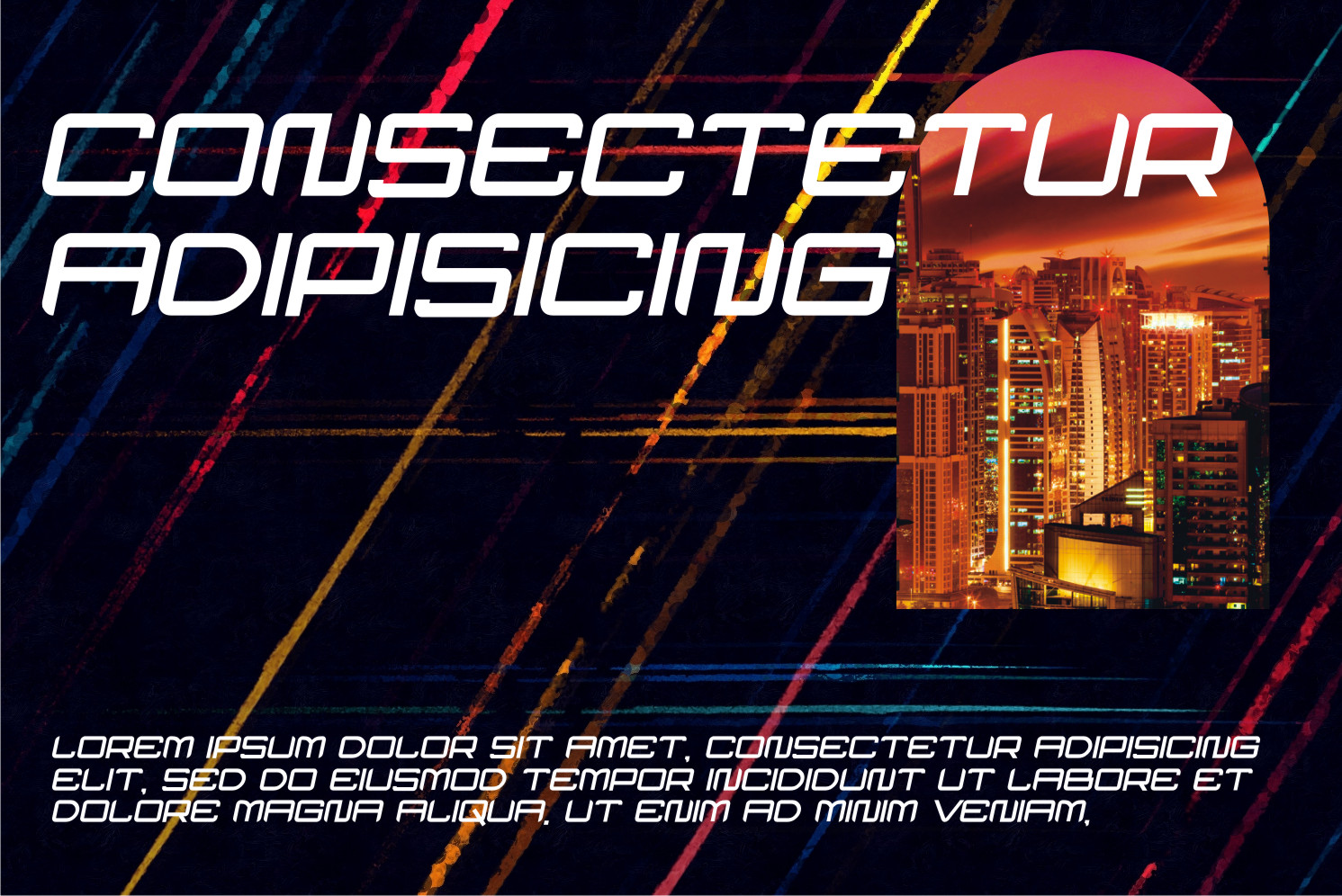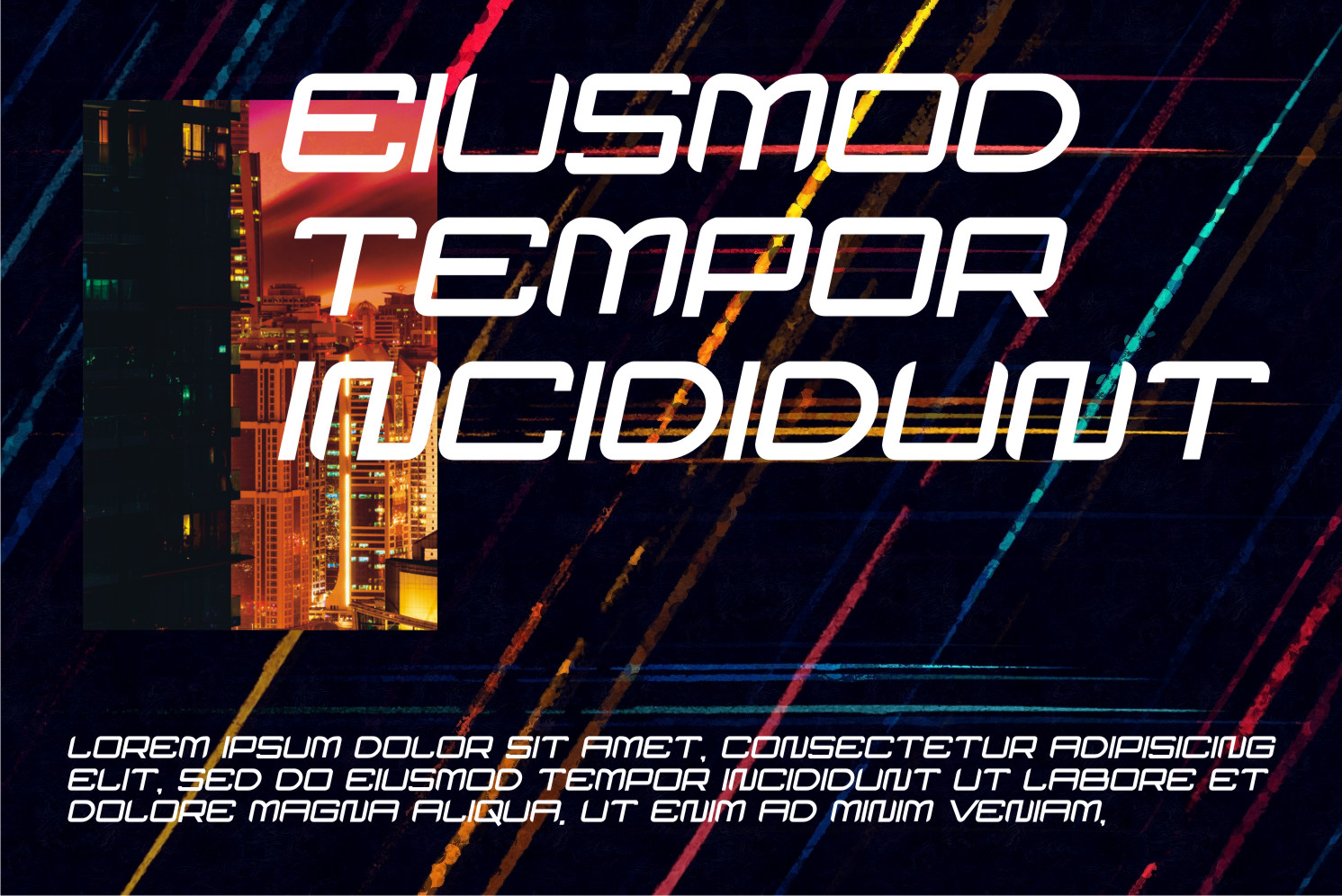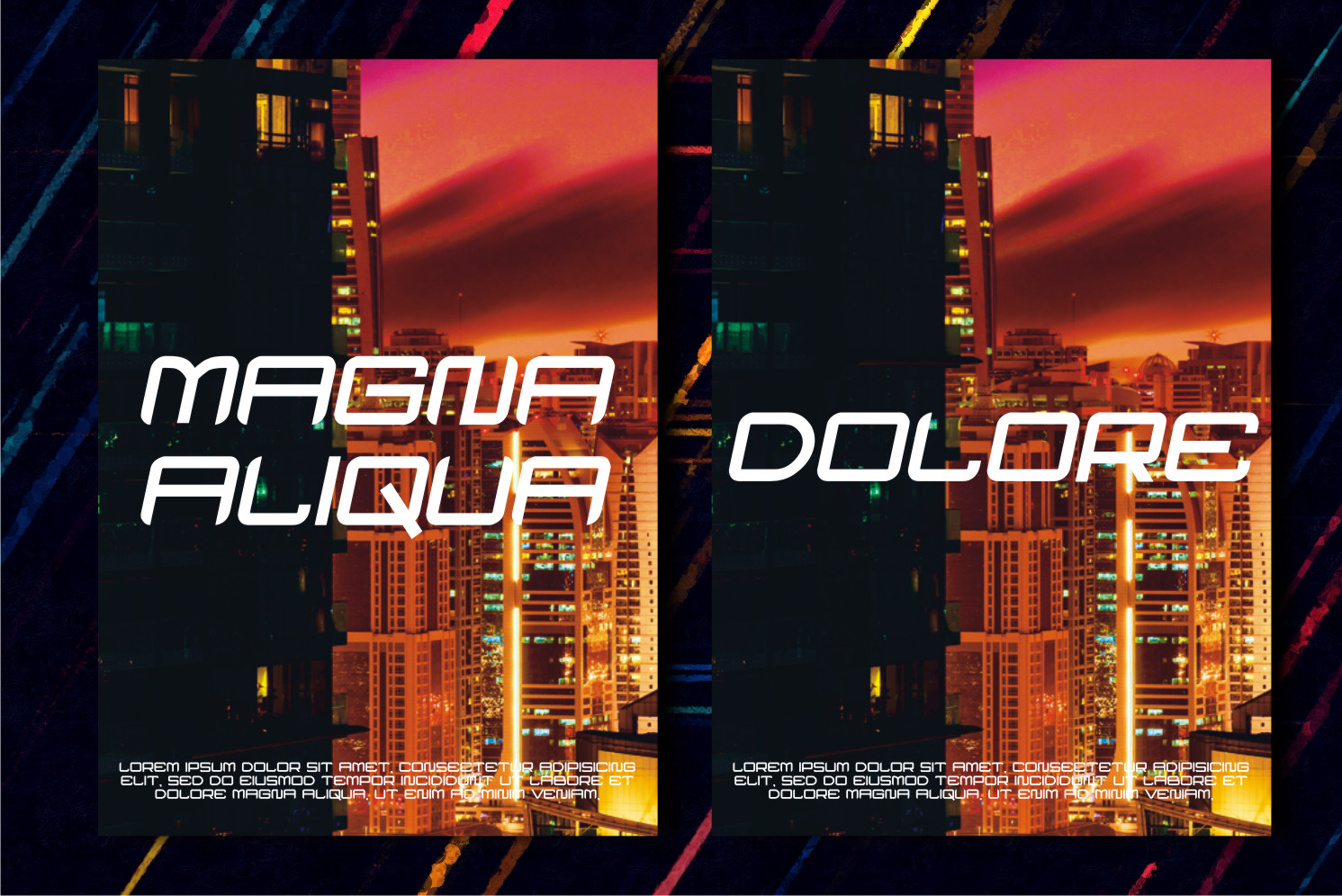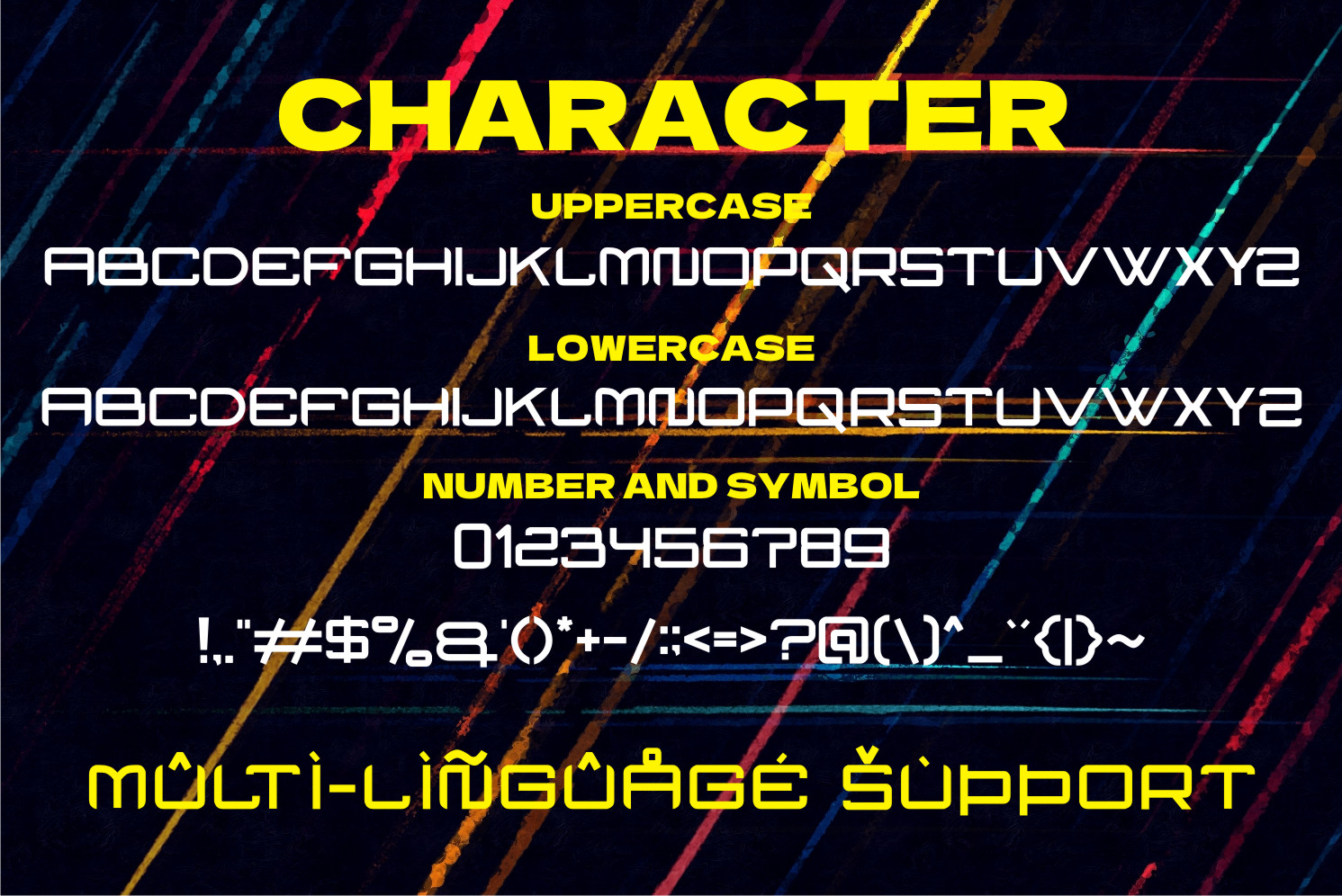
Harues Font
Harues Display Font
It’s a cool and robotic styled display font. This font is ideal for writing web designs, business cards, or pretty much anything else that requires a unique touch.